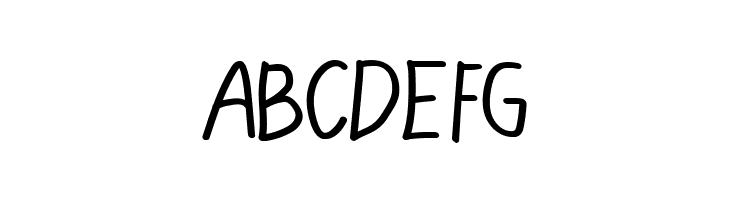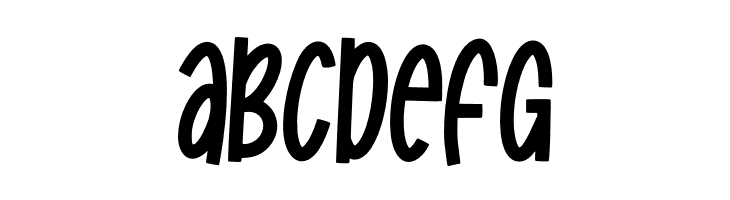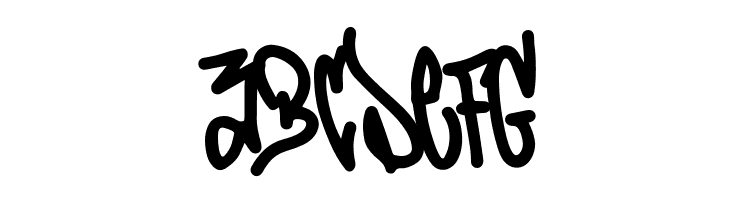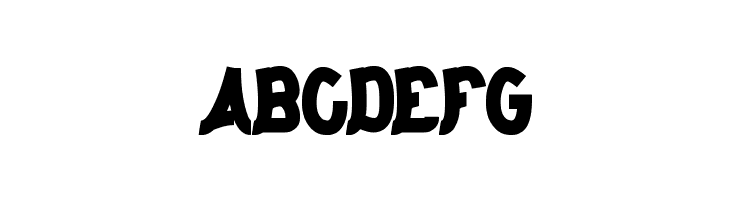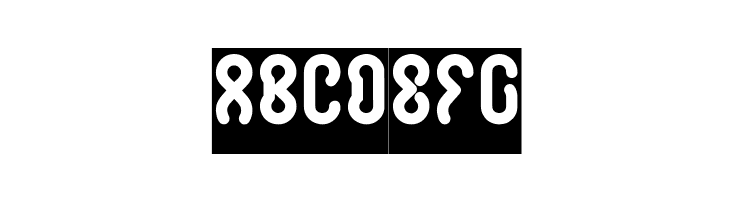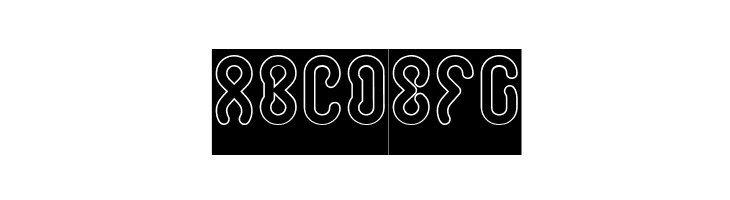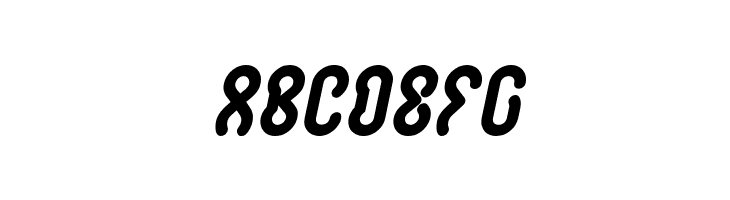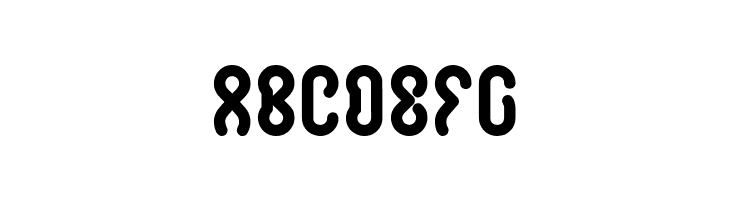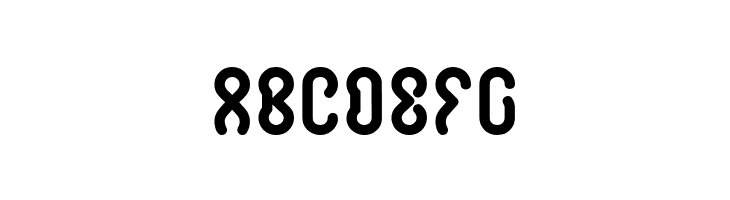
• Jumping Running
A bold, playful font with a dynamic, hand-drawn style.
• Jumping Squid
( Fonts by Cikareotype Studio )
A bold, graffiti-inspired font with dynamic, playful curves.
• JUSSTA
A bold, playful font with rounded edges and consistent thickness.
• JUSSTA Italic
A bold, playful handwritten font with rounded, slanted characters.
• JUSSTA-Hollow
A modern, hollow font with rounded edges and consistent stroke width.
• JUSSTA-Hollow-Inverse
A modern, hollow, and inverse font with smooth curves and consistent stroke width.
• JUSSTA-Inverse
A playful, rounded font with a tubular design and consistent stroke width.
• JUSSTA-Light
A playful, bold font with rounded, interconnected strokes and a modern, whimsical style.
• Just Like
A casual, handwritten font with smooth, fluid strokes.
• Kabhedo
( Fonts by Skiiller Studio )
A bold, playful handwritten font with a lively and energetic style.